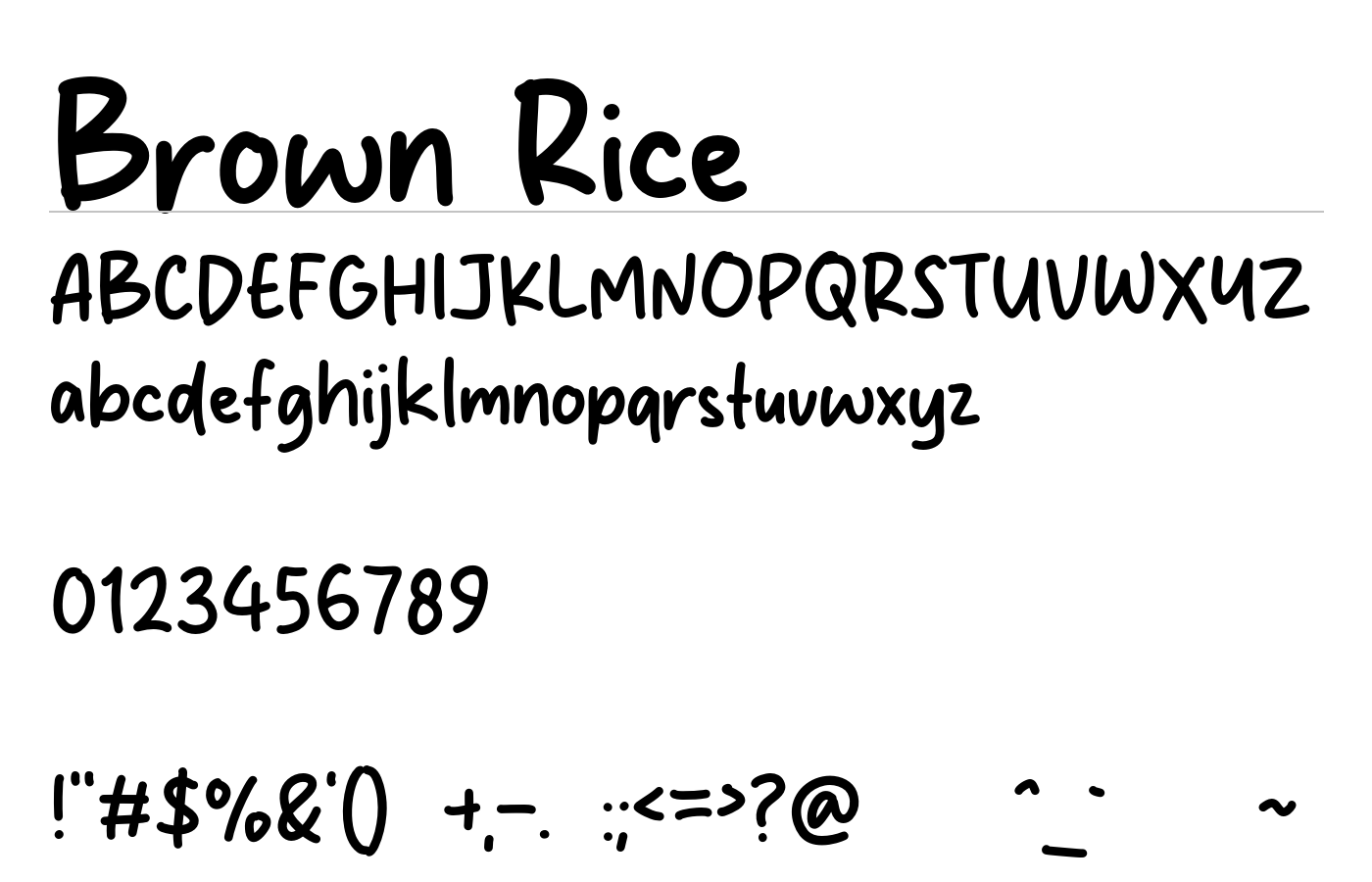
Brown Rice is a casual, handwritten sans serif font with a friendly, playful character. Its rounded, slightly irregular letterforms and moderate weight give it a warm and approachable feel, making it perfect for informal, creative projects like children's books, greeting cards, and fun branding. This font works well when you want to convey a personal, relaxed vibe with clear readability.
Brown Rice Font
About Brown Rice Font